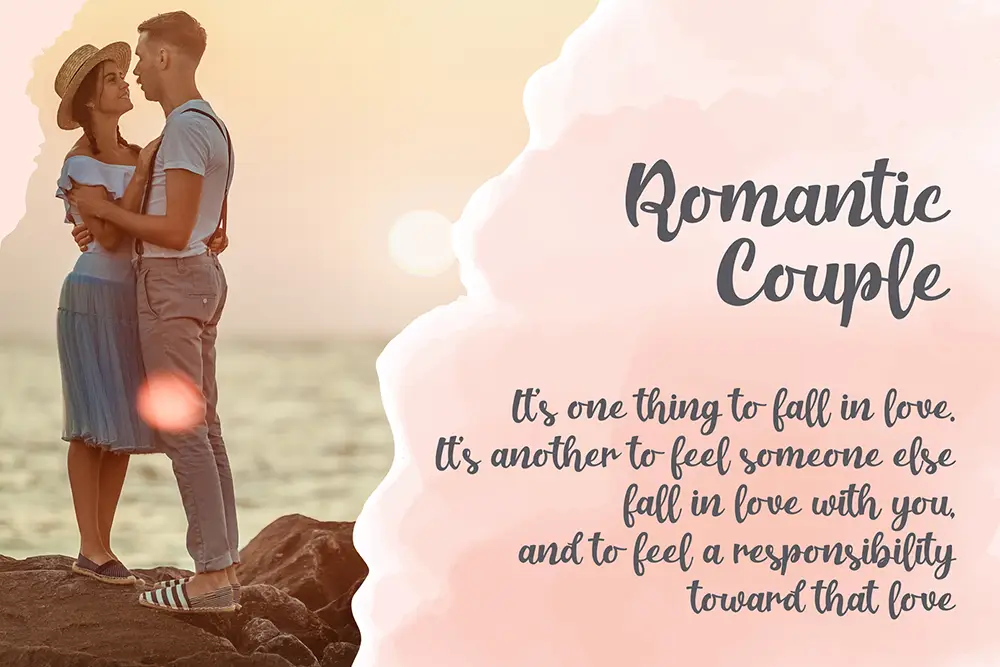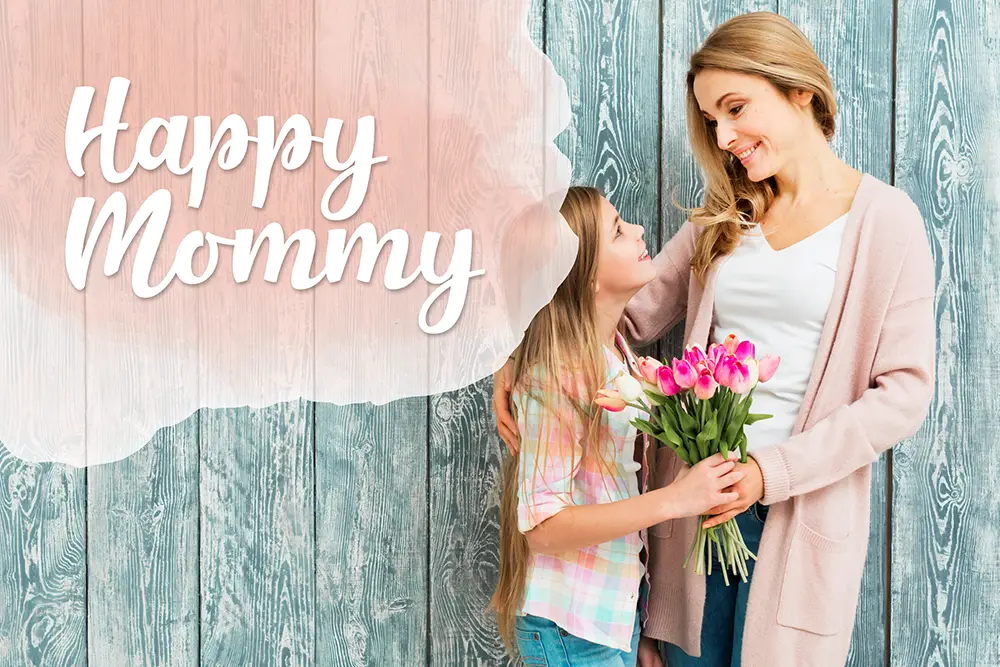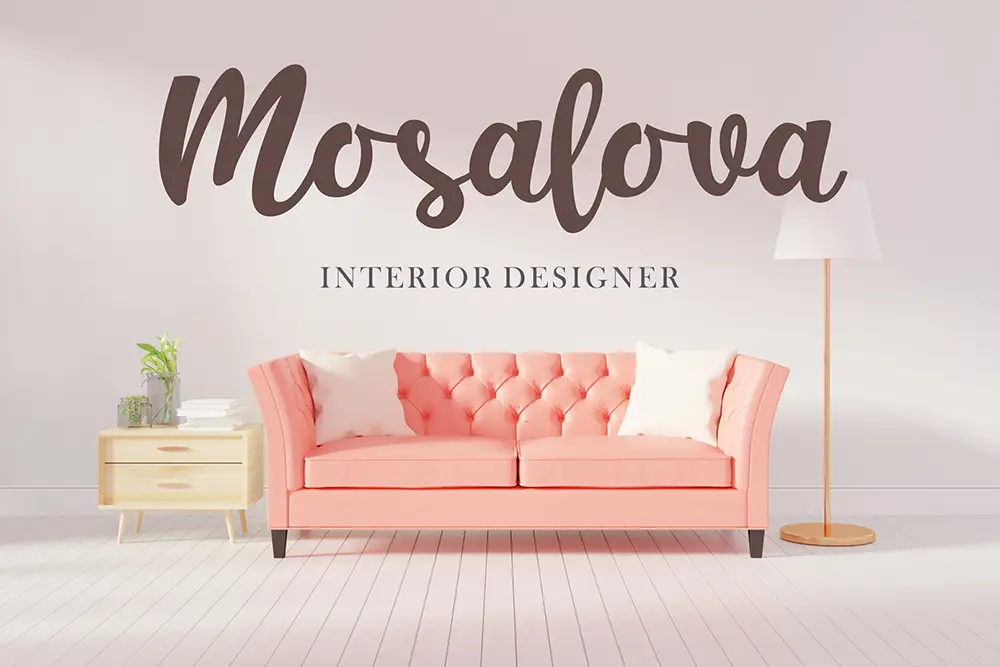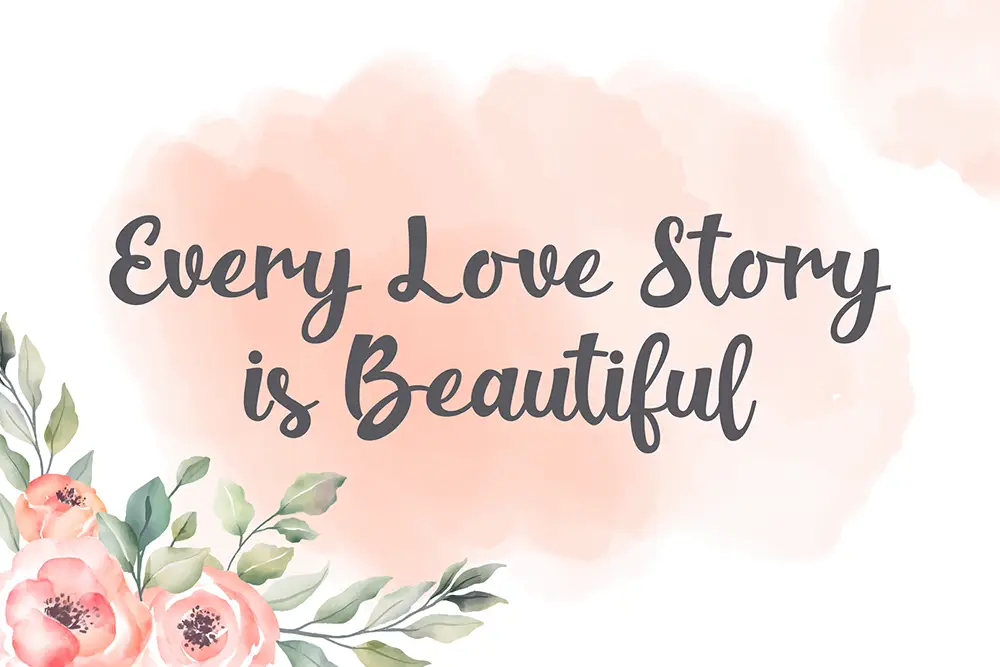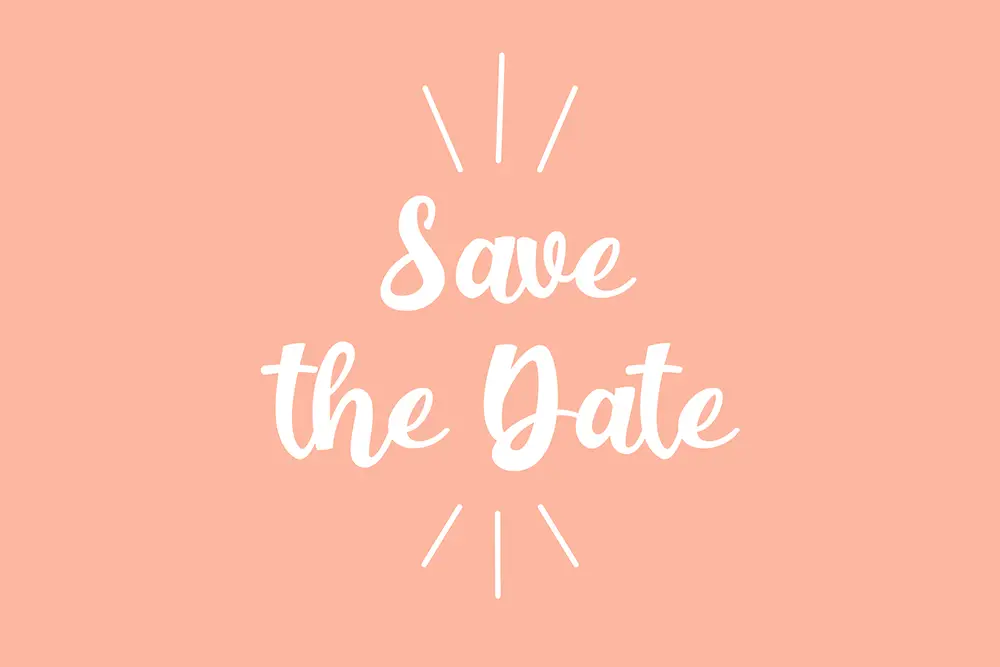
Typography can capture emotions and set the tone of any design project. Khaleiyfa – Lovely Modern Script Font is crafted to bring charm, romance, and elegance into your creative work. With smooth curves and modern calligraphic strokes, this lovely script font adds a personal, heartfelt touch to every design. Whether you’re designing wedding invitations, greeting cards, branding projects, or social media graphics, Khaleiyfa helps you create designs that feel warm, stylish, and memorable.
The beauty of this lovely modern script font lies in its versatility—it’s graceful enough for feminine designs yet modern enough to be applied across branding and digital platforms.
Lovely Modern Script Font with Romantic Personality
Khaleiyfa is more than just another script typeface. It’s a lovely modern script font designed with passion and artistry. Every curve flows naturally, mimicking authentic handwriting while still maintaining perfect readability. This makes it ideal for projects that require a personal yet polished look.
From wedding stationery to boutique branding, Khaleiyfa conveys emotion, sophistication, and creativity. When paired with a complementary serif font such as Kastroz Luxury Vintage Serif Font, the results are breathtaking—balancing modern script with classic elegance.
Key Features of Khaleiyfa – Lovely Modern Script Font
Designers need fonts that are both beautiful and practical. Here are the standout features of Khaleiyfa – Lovely Modern Script Font:
- Uppercase & Lowercase: Complete set of characters for versatile design.
- Multilingual Support: Extended Latin characters for international use.
- Natural Handwritten Flow: Elegant calligraphy-inspired strokes.
- Perfect for Weddings & Branding: Lovely and timeless aesthetic.
- Smooth Curves & Clean Design: Ensures readability without losing charm.
Why Designers Love Khaleiyfa
Creative professionals love Khaleiyfa because it embodies everything a lovely modern script font should be: elegant, versatile, and practical.
Here’s why it’s a favorite among designers:
- Romantic Feel: Perfect for wedding invitations, love letters, and event branding.
- Versatility: Works equally well for feminine products, boutique logos, and digital projects.
- Professional Quality: Carefully kerned and crafted for smooth usage.
- Great Pairing: Complements serif fonts like Kastroz Luxury Vintage Serif Font.
Khaleiyfa for Wedding Invitations
Weddings are all about romance and elegance, and typography plays a crucial role in setting that mood. Khaleiyfa, as a lovely modern script font, is the ideal choice for invitations, save-the-date cards, menus, and wedding signage. Its flowing strokes create a romantic atmosphere that resonates with couples and guests alike.
By using Khaleiyfa, your wedding stationery won’t just look beautiful—it will tell a story of love and connection.
Khaleiyfa for Branding and Logos
When creating brand identities, typography becomes the voice of the brand. Khaleiyfa is the perfect lovely modern script font for boutique shops, lifestyle brands, beauty products, and creative entrepreneurs.
Its soft yet stylish strokes communicate elegance and modernity. A logo designed with Khaleiyfa instantly feels personal, premium, and timeless. Paired with a serif like Kastroz, it achieves the perfect balance between modern charm and classic strength.
Khaleiyfa in Digital Media
Social media thrives on visuals that are both attractive and emotional. Khaleiyfa delivers exactly that. This lovely modern script font works perfectly for Instagram quotes, Pinterest graphics, YouTube titles, and personal branding across platforms.
Designers and content creators choose Khaleiyfa because it’s flexible—it looks stunning both in large titles and in delicate captions.
- Character Set: Uppercase, Lowercase, Numbers, Punctuation
- Multilingual Support: Yes
- Category: Lovely Modern Script Font
- Best Uses: Wedding Invitations, Branding, Logos, Greeting Cards, Social Media, Packaging
Why Khaleiyfa is a Must-Have Script Font
Typography trends are leaning toward fonts that feel authentic and personal. Khaleiyfa captures this perfectly. It’s not just another script font; it’s a lovely modern script font built to enhance emotional connection in design.